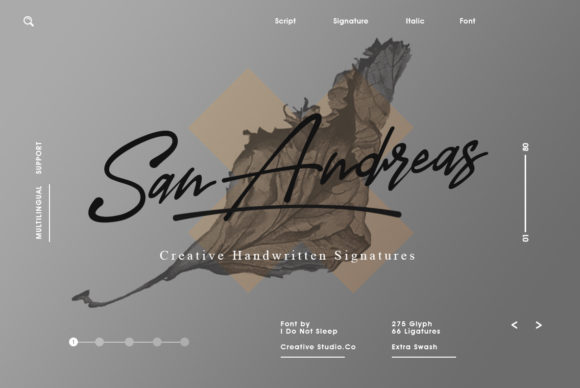
Unleash the allure of the San Andreas Font, a mesmerizing script that captivates with its enchanting handwritten charm. Embark on a journey of creativity, where your designs take center stage, exude a resounding air of originality. Crafted by the visionary minds at I Do Not Sleep, this font is a symphony of flowing lines, each stroke a testament to artistic brilliance.
With its smooth texture, the San Andreas Font glides effortlessly across your designs, leaving a trail of sophistication. Its versatility knows no bounds, seamlessly adapting to a myriad of printing techniques. Unleash your inner artist and explore the endless possibilities of engraving, laser cutting, and shimmery gold foil. Let your designs transcend the ordinary and command attention wherever they grace.
Embrace the power of ligatures, the harmonious fusion of characters that enhance the authenticity of the San Andreas Font. These meticulously designed ligatures maintain the integrity of the handwritten effect, adding an extra layer of charm and realism. Your designs will radiate authenticity, captivating your audience with their organic beauty.
Welcome to a world where creativity thrives, where the San Andreas Font reigns supreme. Experience the transformative power of typography, where words dance with emotion and leave an indelible mark on the hearts of your readers. With every design you create, you'll unveil a new dimension of artistic expression.